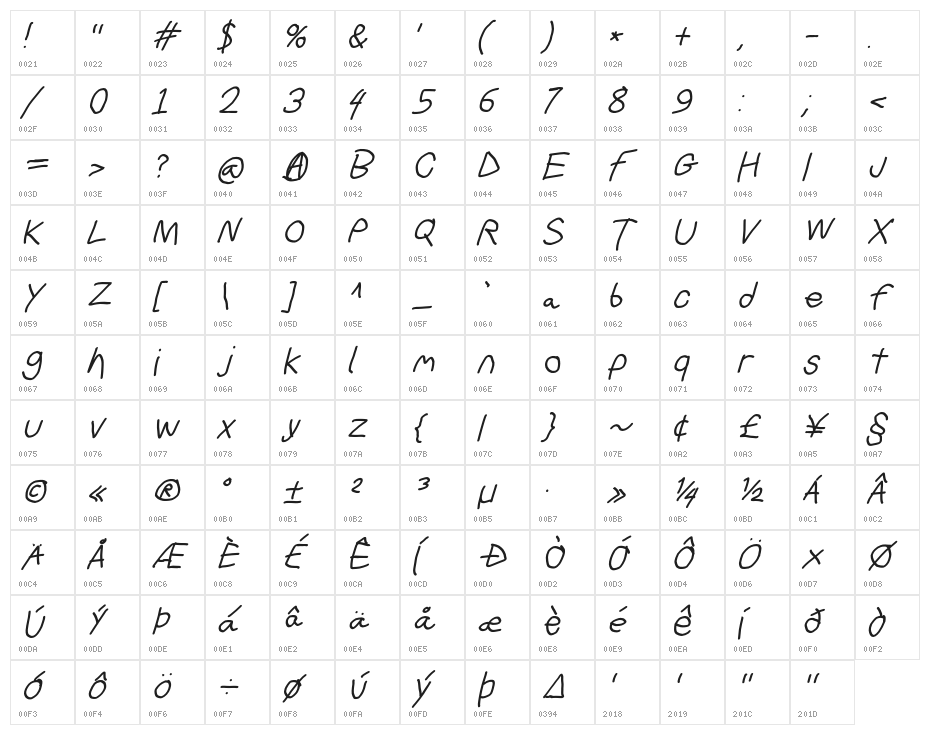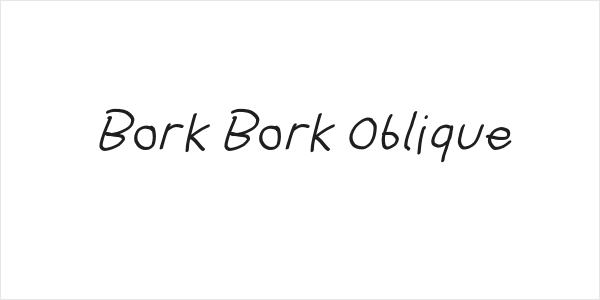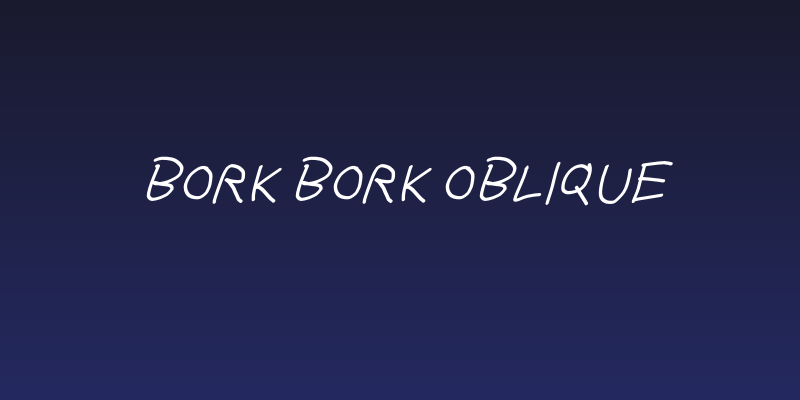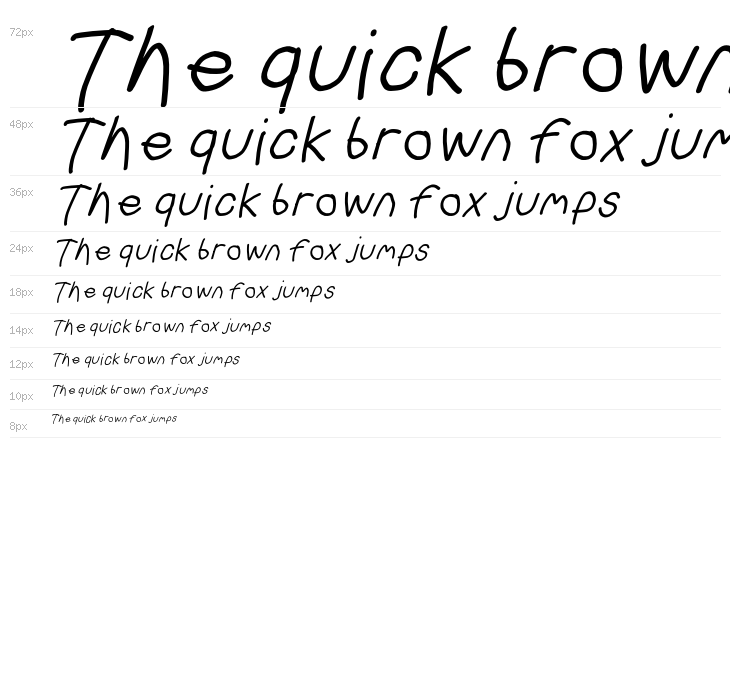
Bork Bork Oblique Font
Bork Bork Oblique Description
This font exhibits a playful and informal handwritten style, characterized by its slanted, oblique orientation. The strokes are smooth and fluid, giving it a casual and approachable appearance. The uppercase and lowercase letters maintain a consistent flow, with rounded edges and a slight tilt that adds to its dynamic feel. Numbers and special characters follow the same style, ensuring uniformity across all glyphs. The overall design is reminiscent of quick, personal handwriting, making it suitable for projects that require a personal touch.
| Use Case | Headlines, Informal text, Personal notes |
| Proposed Projects | Ideal for personal notes, casual invitations, greeting cards, and informal branding projects. |